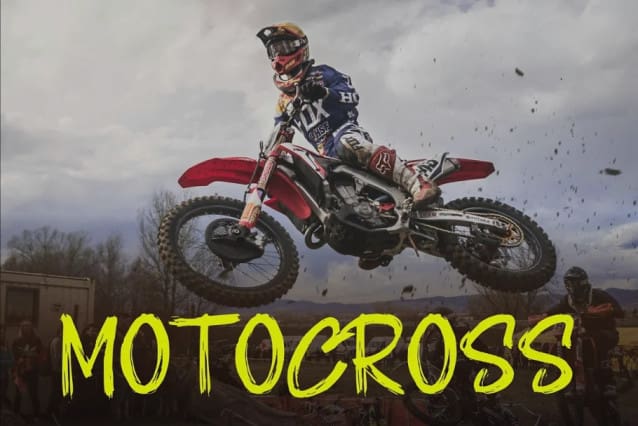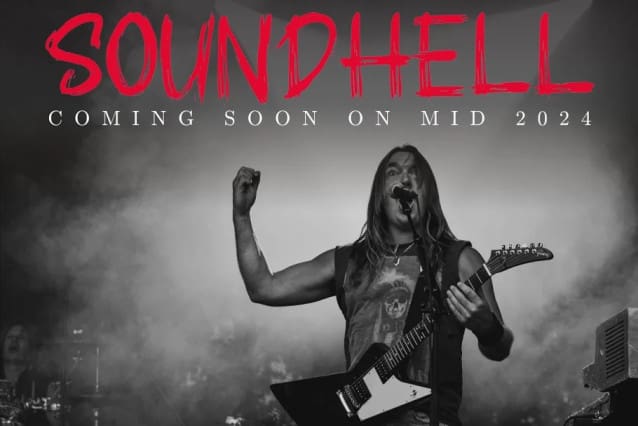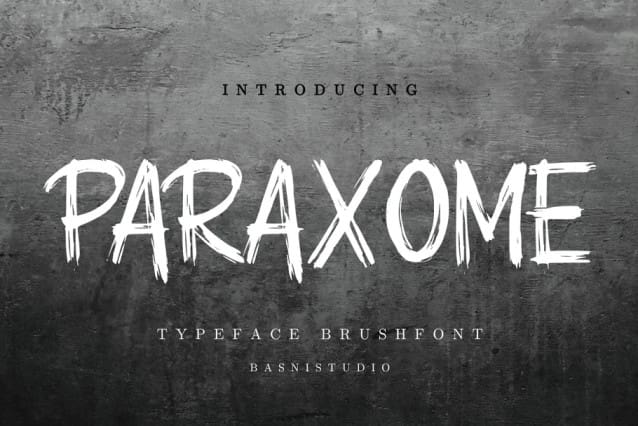
Paraxome Brush Font
Paraxome Brush Font, made with details and precision, perfect for branding, websites, and editorial designs. Includes all Caps letters, multilingual support, punctuation, binding. everything can be easily accessed using software that supports OpenType.